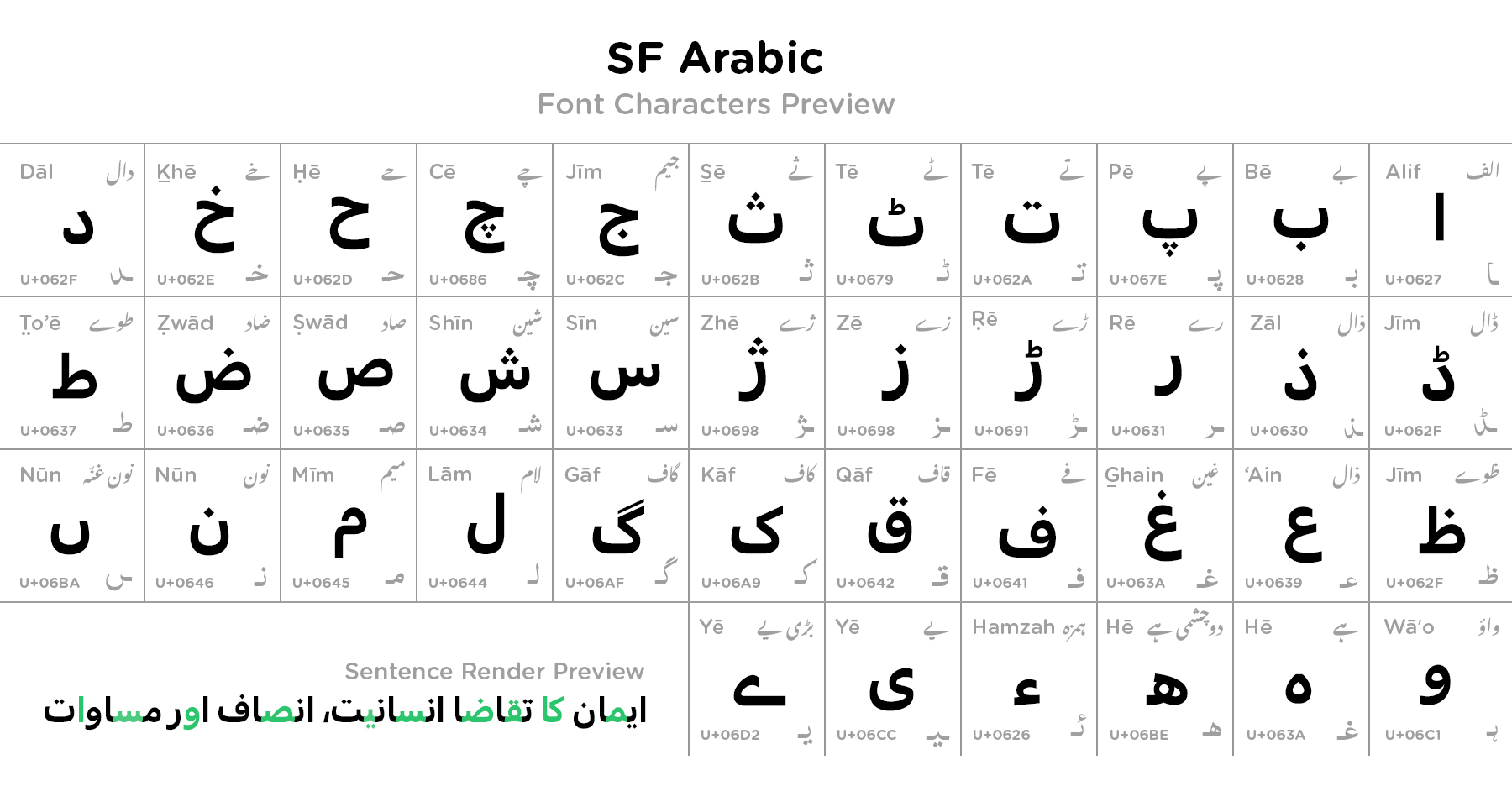
SF Arabic or San Fransisco Arabic is one of the most popular font families that comes in a variety of weights befitting various design needs. It was developed by Apple in the early 2000s with a series of other fonts. Inspired by the traditional Naskh style, it is highly readable even in smaller sizes. SF Arabic is designed to be both flexible and space-efficient. It has a total of 700 characters and 1327 glyphs and is based on Arabic and Latin Symbols but can be used to write text in different languages including Urdu.
The precise typography of this font is made possible by nine weights, including italics, as well as additional features like small caps, fractions, higher and lowercase numbers, indexes, arrows, and more. According to the Apple Inc. license, this Apple Font can only be used for modeling user interfaces for software applications that operate on Apple's iOS, iPadOS, macOS, or tvOS operating systems, as applicable. However, many designers use it for various personal projects and artistic works. Its weights are as follows: